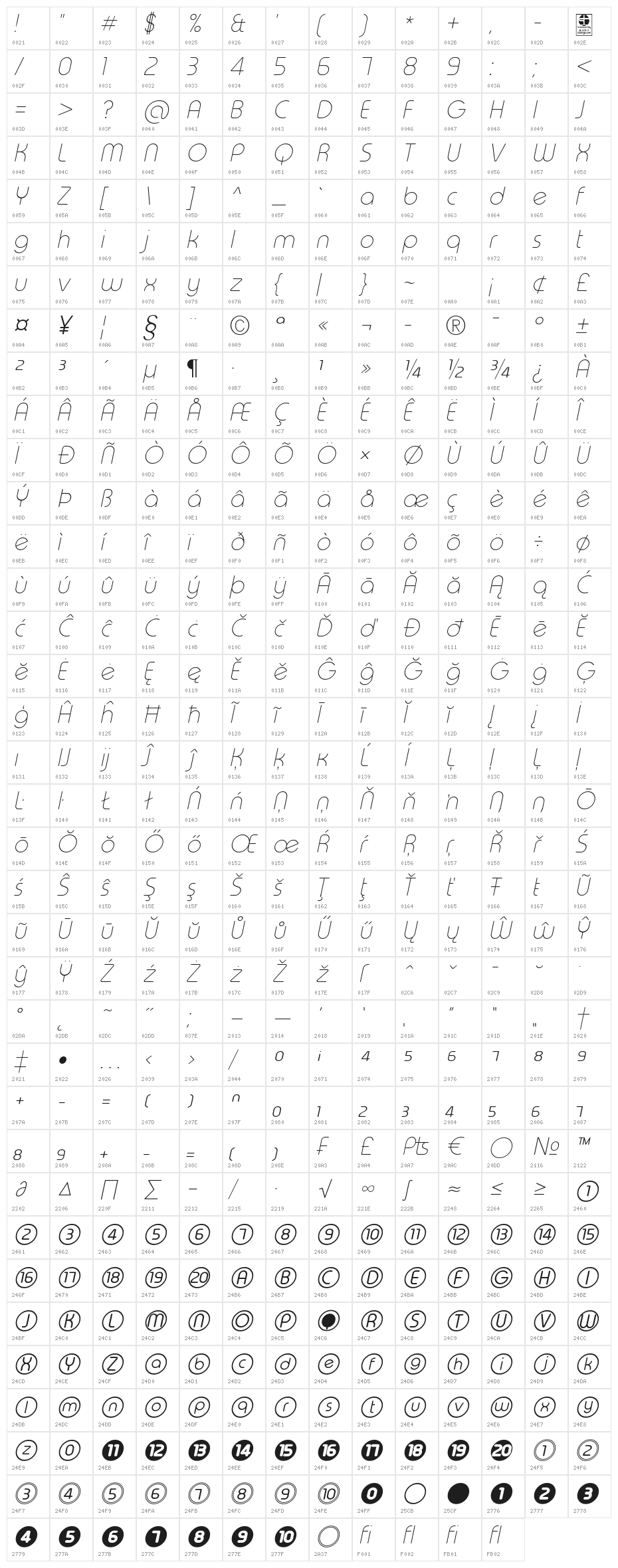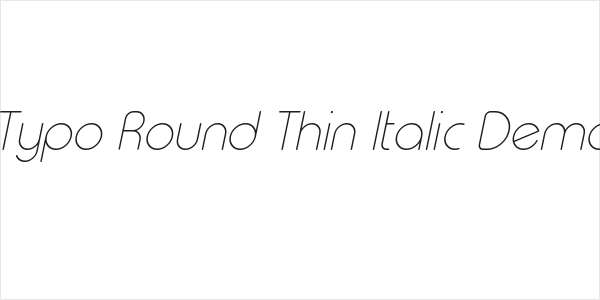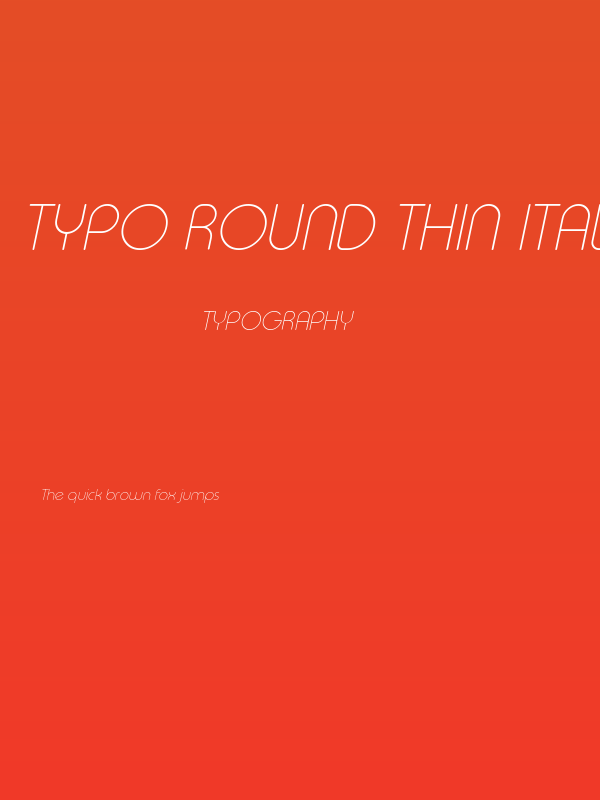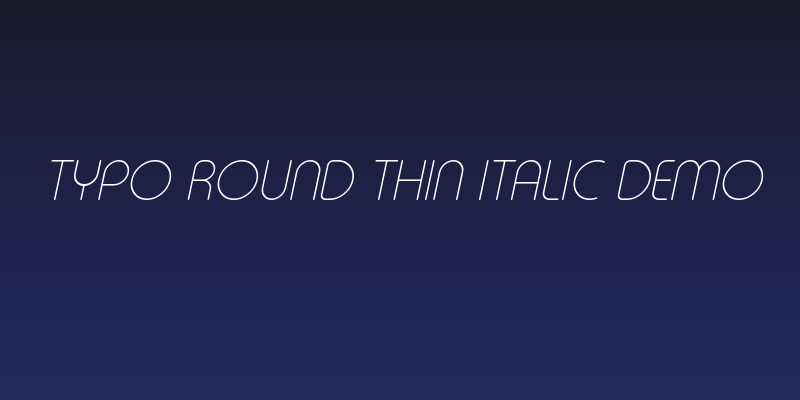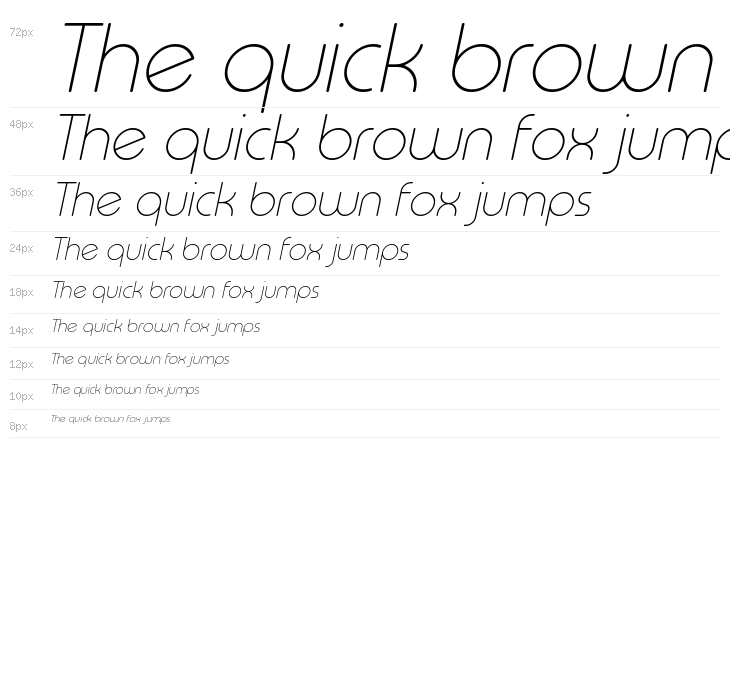
Typo Round Thin Italic Demo Font
Typo Round Thin Italic Demo Description
This font features a sleek, modern design with a thin, rounded appearance. The characters are slightly italicized, giving a sense of motion and elegance. The uppercase and lowercase letters maintain a consistent style, with smooth curves and minimalistic lines. The numerals are clear and easy to read, matching the overall aesthetic of the font. Special characters are included, designed with the same attention to detail and style. This font is ideal for projects that require a contemporary and stylish look.